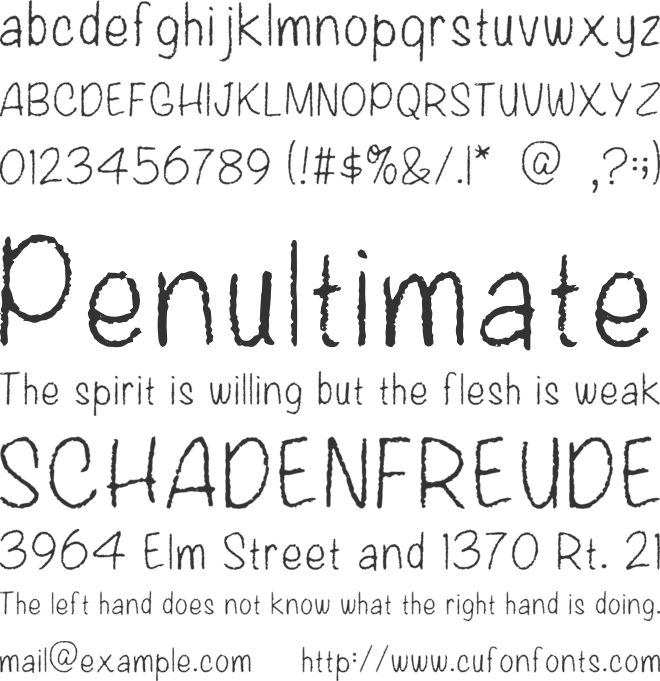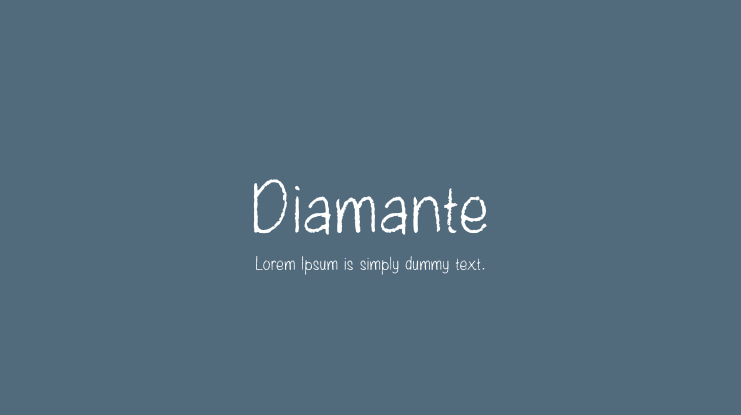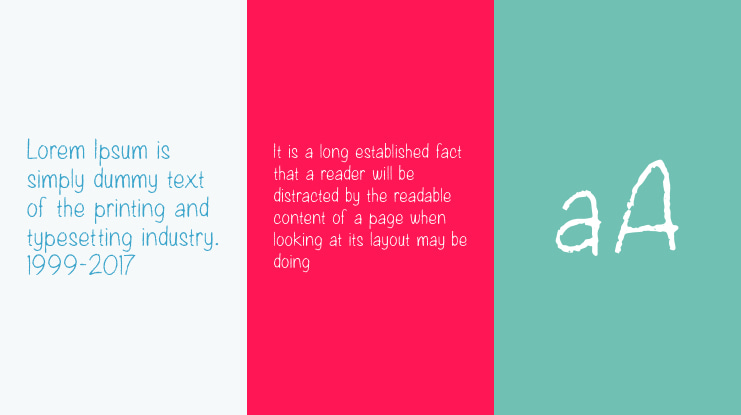
Diamante Font
Muhammad Nashrul Aziz
Diamante is a simple and informal handwritten font. Its natural and unique style makes it incredibly fitting to a large pool of designs. The only limit is your imagination!